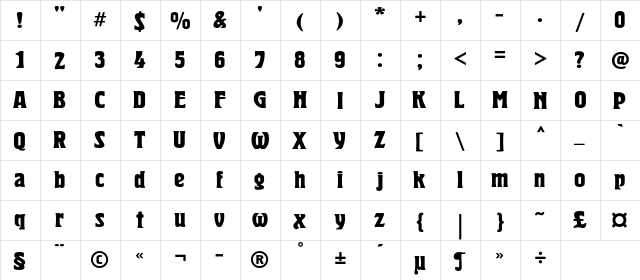
HeroldC Regular
Design Context for HeroldC Typeface
HeroldC takes a measured approach to typography — its balanced proportions and neutral character make it a reliable workhorse for both digital and print work.